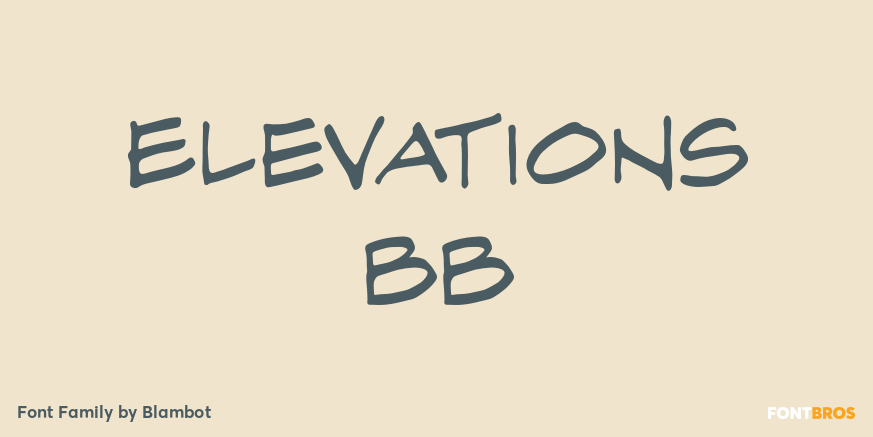
Elevations BB
About Elevations BB
Elevations BB is inspired by the hand lettering of architects and engineers. It comes with Regular, Italic, Lowercase, and Lowercase Italic. The Opentype Regular and Italic versions contain auto-ligatures to make any two identical, adjacent letters look…